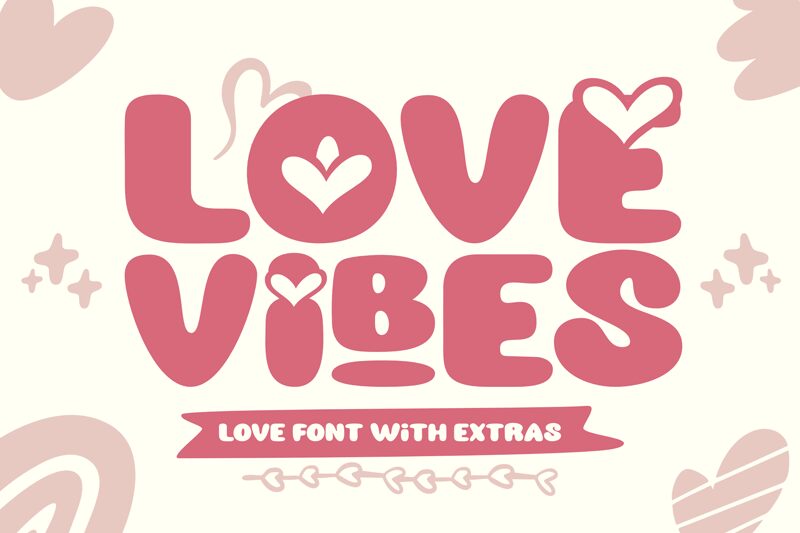
Love Vibes Regular
Love Vibes is a bold, cartoon-style display font designed by Lettersweet Studio. This playful typeface exudes a cheerful and energetic vibe, with its rounded letterforms and whimsical flourishes. The thick, dynamic strokes create an impression of warmth and youthfulness, making it an excellent choice for projects targeting a fun, lighthearted audience. Love Vibes' distinctive style and character make it a standout option for eye-catching headlines, playful branding, and attention-grabbing designs.
This versatile font can elevate a wide range of projects, from vibrant social media graphics and lively event invitations to captivating children's storybooks and energetic product packaging. Its bold, cartoon-inspired aesthetic lends itself particularly well to designs that aim to spark joy, foster positive emotions, and engage audiences with a sense of playfulness and charm.